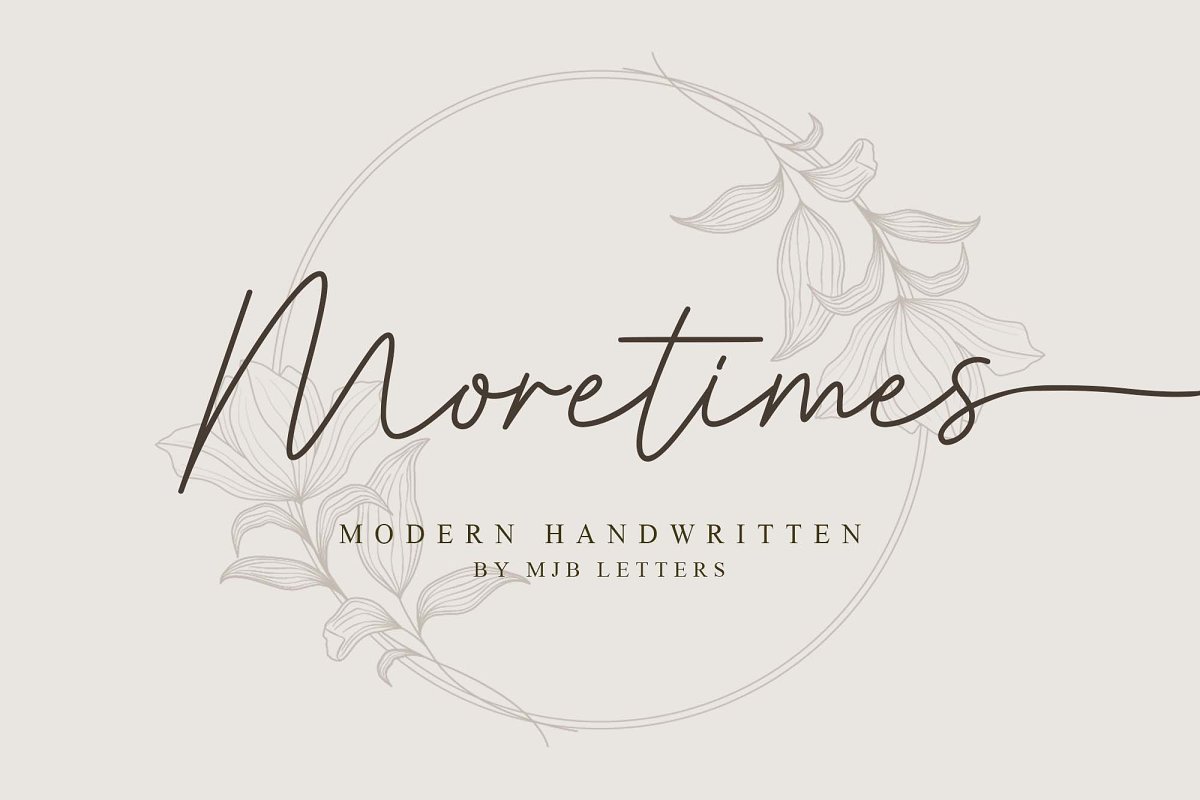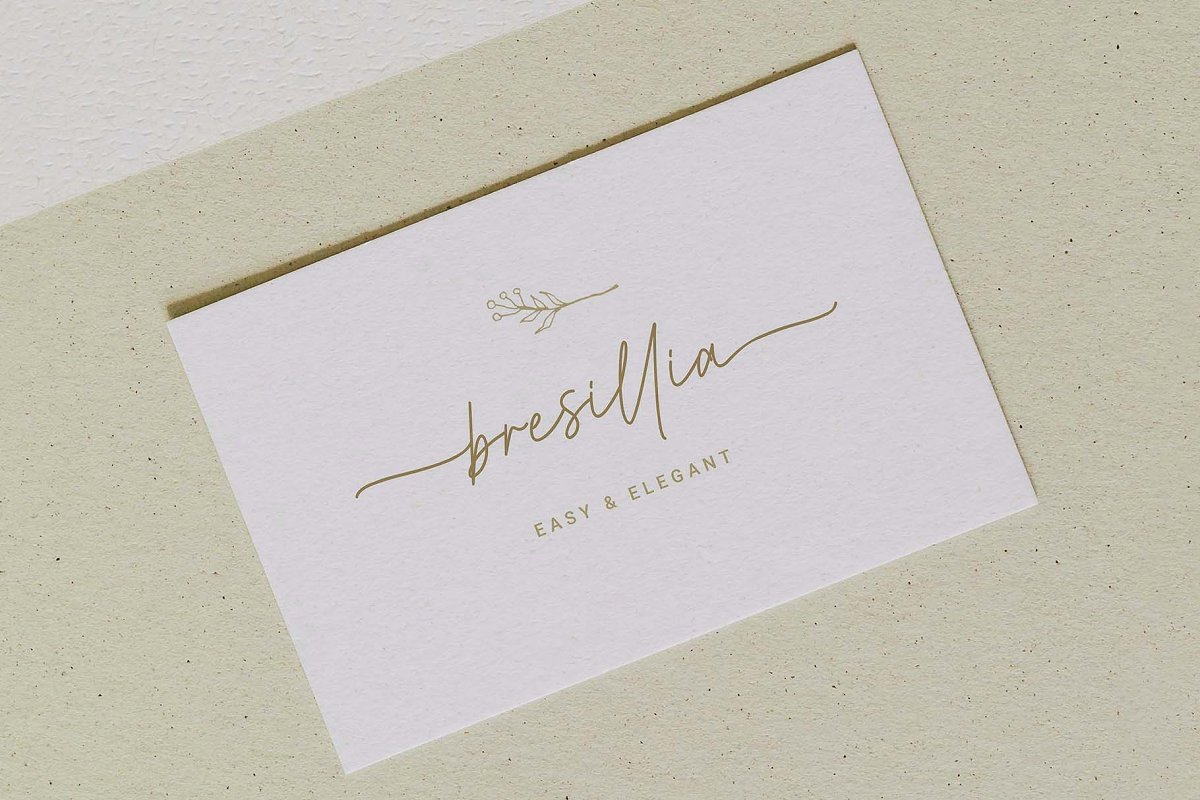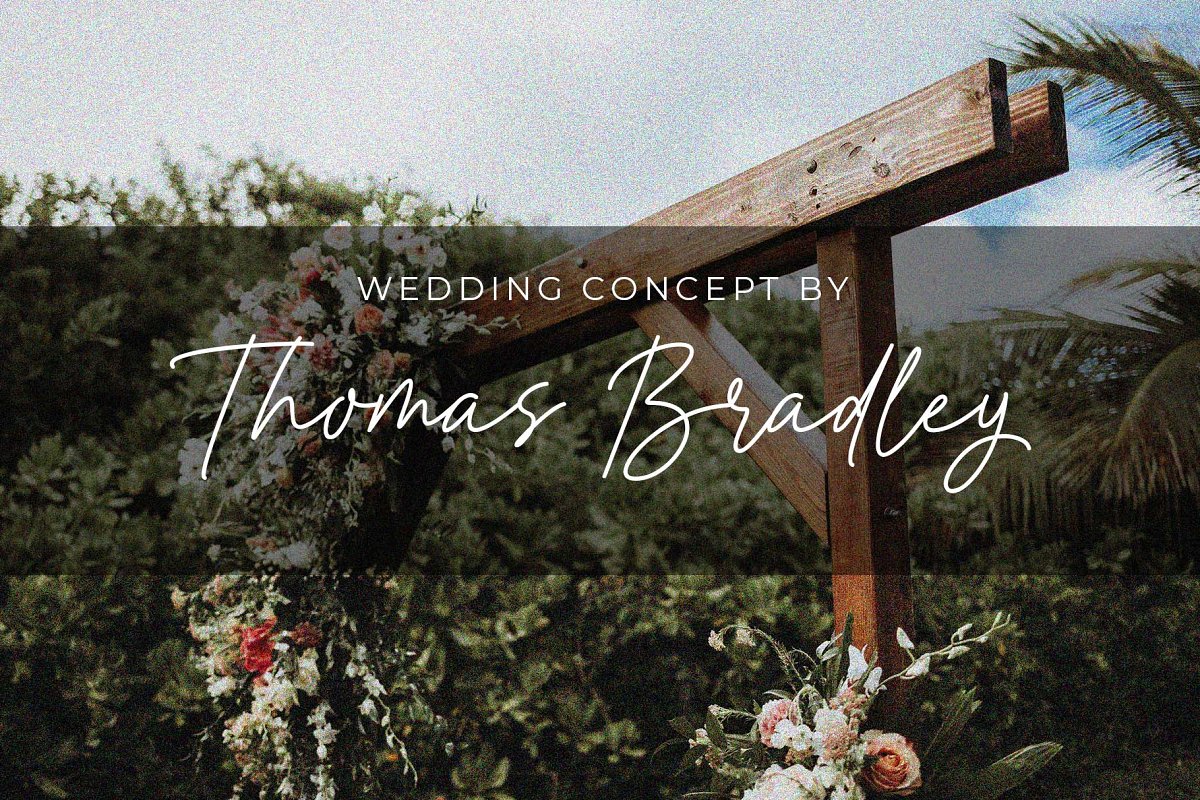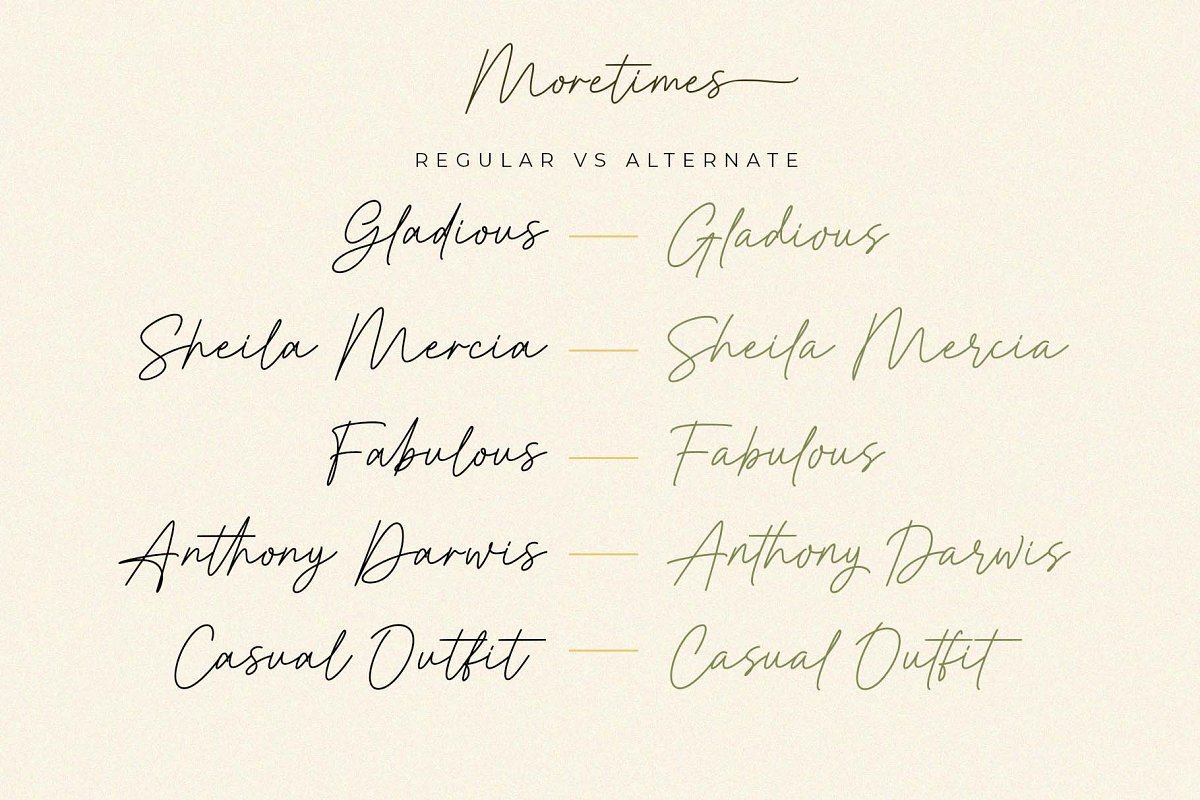
Moretimes Script Font Family Free Download
About the Moretimes Script Font
Moretimes is a modern and clean handwritten font, This font has an elegant and natural flow, Each uppercase and lowercase letter has an alternative that gives you more options, and you can customize the design as you like, This font is perfect for logo design, quotes, wedding invites, branding, signature, watermark, fashion, and more, You will get :Moretimes TTFMoretimes OTFMoretimes WOFFIn order to use the beautiful swashes, you need a program that supports OpenType features such as Adobe Illustrator CS, Adobe Photoshop CC, Adobe Indesign, and Corel Draw